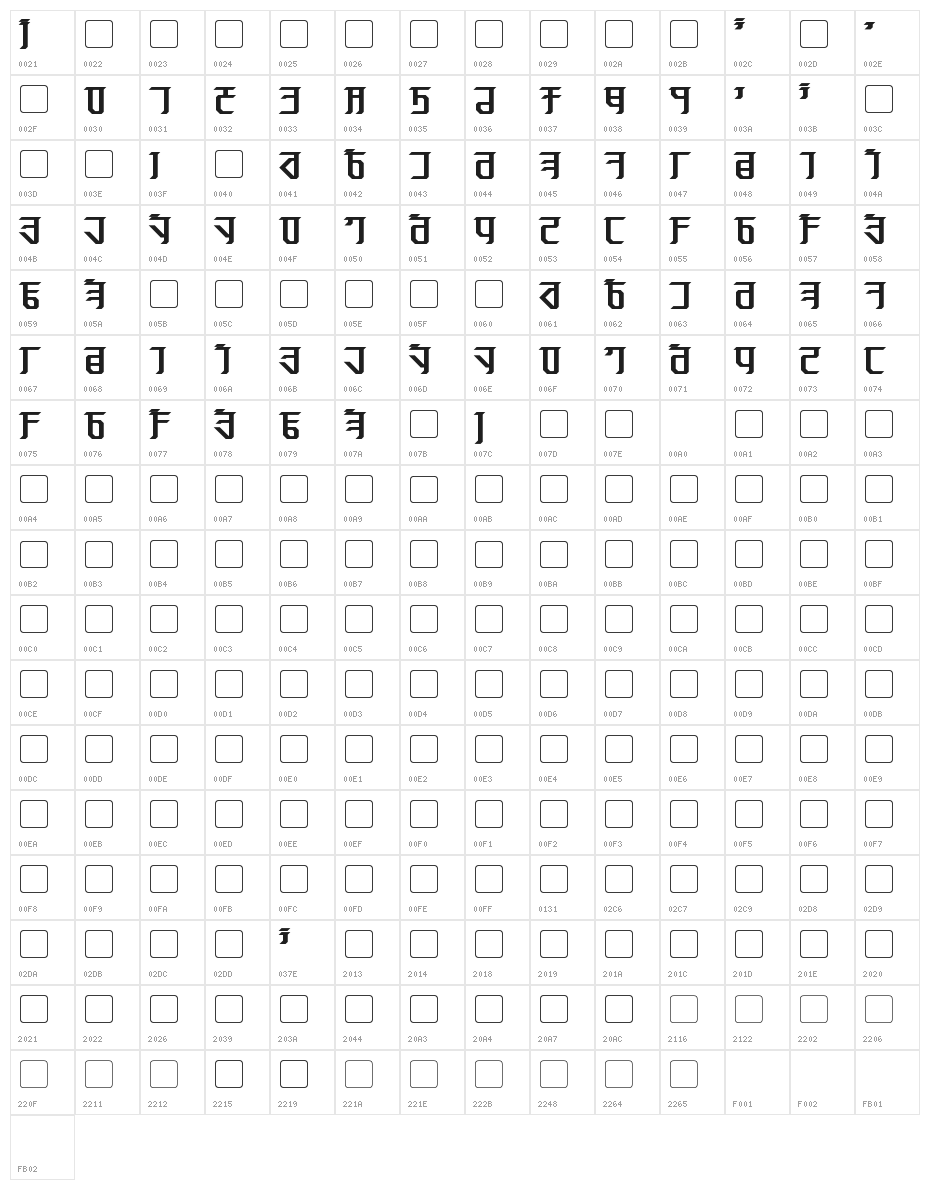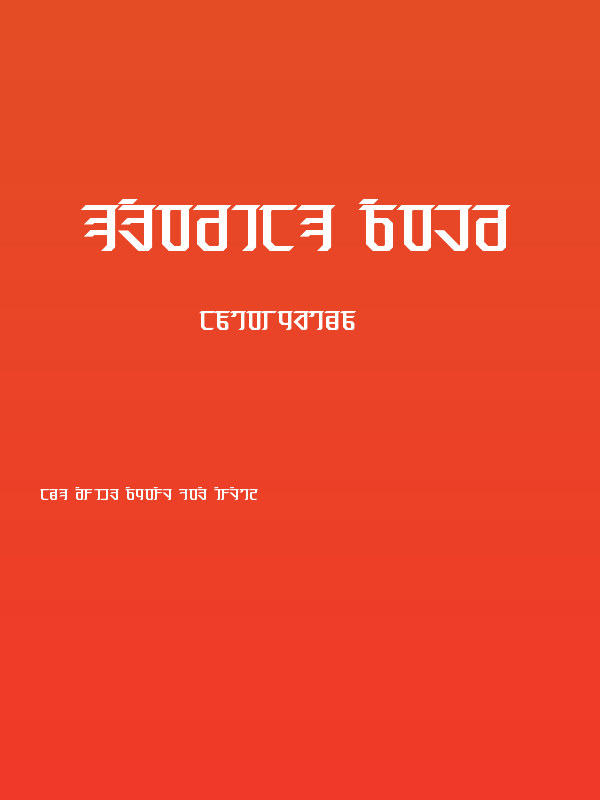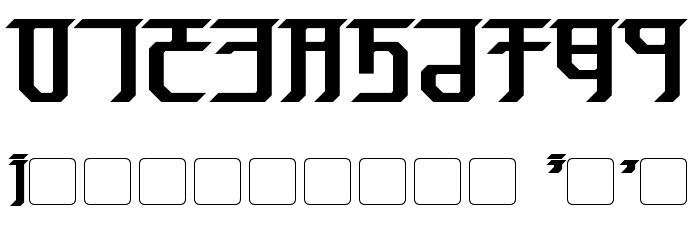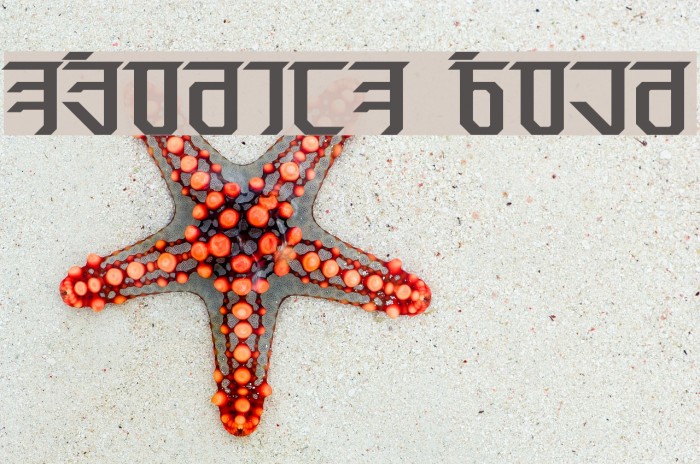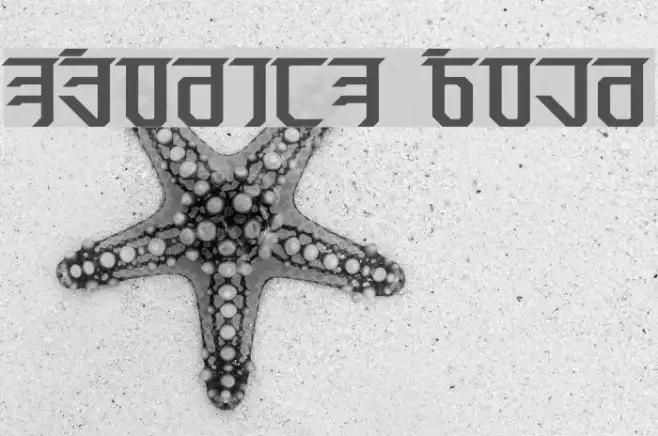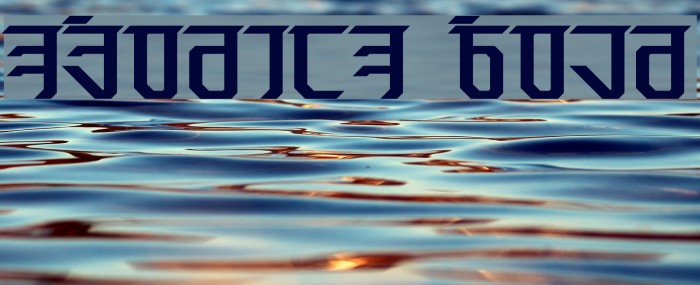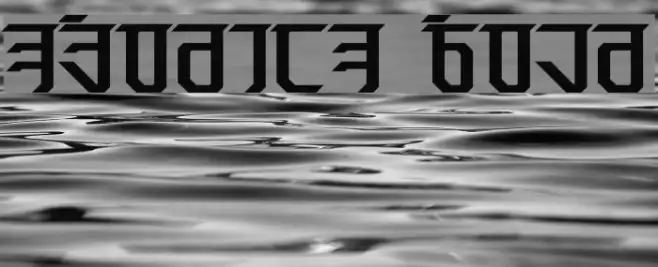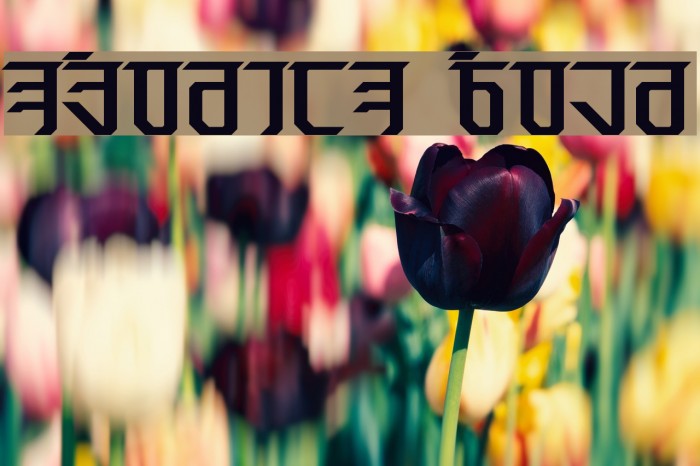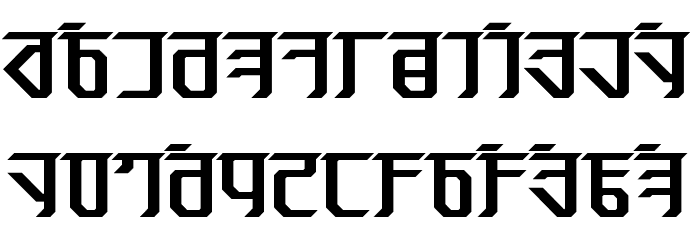
Exodite Bold Font
Exodite Bold Description
This font features a bold, angular design with sharp, geometric edges and a futuristic aesthetic. The characters are constructed with a consistent thickness, giving them a strong and impactful presence. The uppercase and lowercase letters share a similar style, maintaining uniformity across the alphabet. The numbers and special characters are designed to match the overall angular theme, ensuring cohesion throughout the font. This style is reminiscent of sci-fi and digital themes, making it suitable for projects that require a modern and edgy look.
| Overall Style | Futuristic, Modern |
| Proposed Projects | Ideal for sci-fi themed projects, video game titles, tech branding, and digital artwork. |